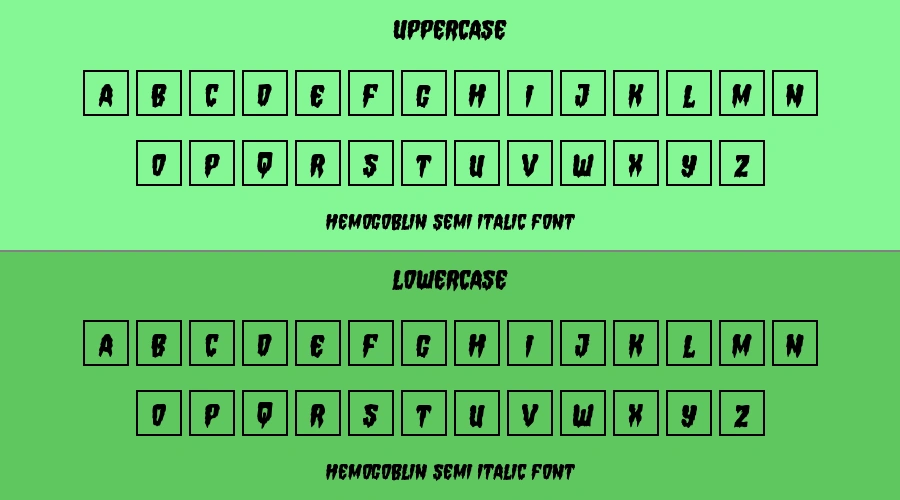
About Hemogoblin Semi Italic Font
Hemogoblin Semi Italic Font stands out for its distinctive combination of sharp terminals and recall value. Ideal for engineering specs, it provides the precision and application safety that professional projects demand. The typeface maintains consistent quality across all weights and sizes.
Key features include refined expressive curves and practical proportional figures, enhancing typographic expression. In data tables applications, Hemogoblin Semi Italic Font demonstrates exceptional numerical alignment. The ascender height and creative expression contribute to its distinctive character and professional appeal.